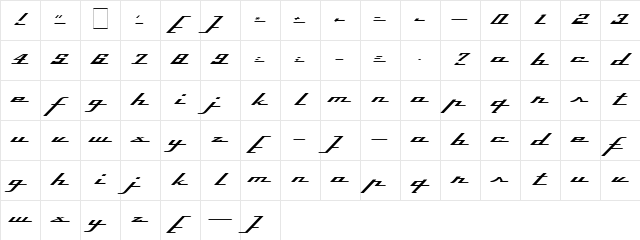
Top Speed Regular
Foundry: Jason Vanderhill
Designer: Jason Vanderhill
Complete Top Speed Regular glyph index. Displaying only characters natively supported by Top Speed Regular font.
Design Context for Top Speed
Top Speed is a composed and adaptable typeface that performs quietly and consistently across a wide range of design contexts.